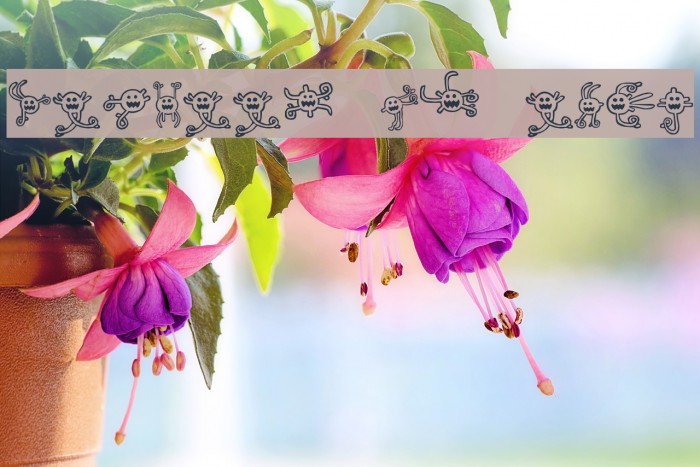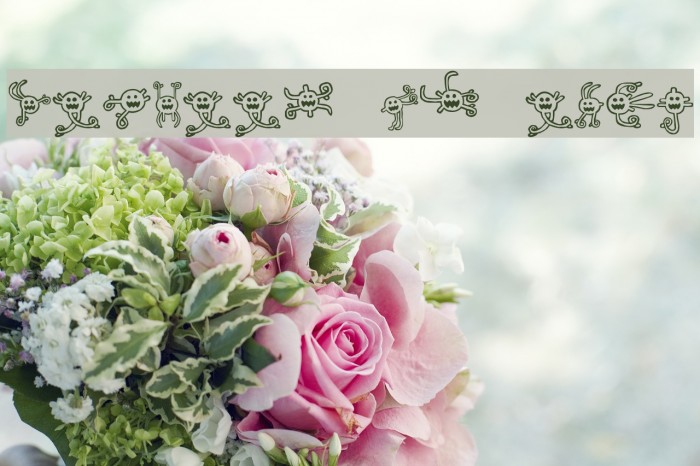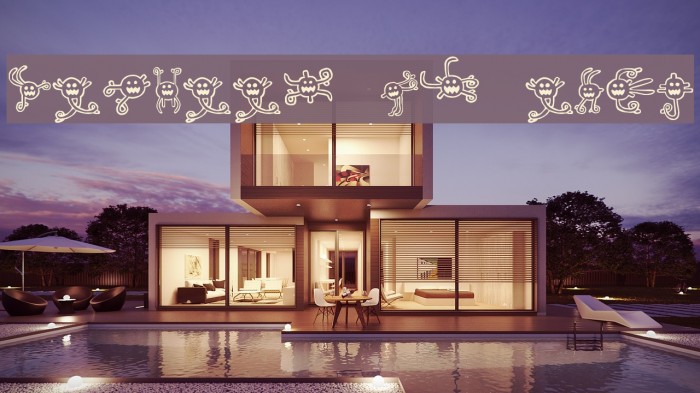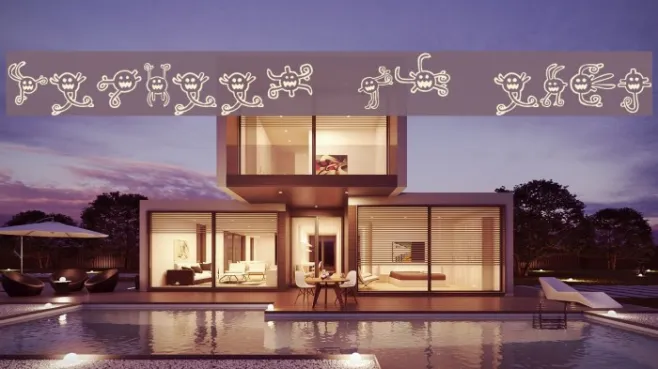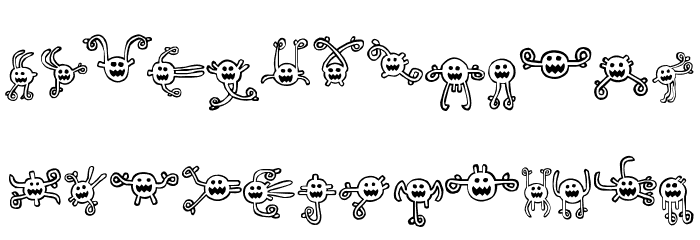
between my ears Font
between my ears Description
This font features whimsical, cartoon-like characters that resemble playful creatures with exaggerated expressions and limbs. Each character is distinct, with a unique combination of swirls, spikes, and dots, giving the font a lively and animated appearance. The design is highly decorative, with a focus on creativity and fun, making it stand out as a unique artistic expression. The characters are bold and outlined, adding to their visibility and impact. This font is not suitable for traditional text but excels in creating a playful and engaging visual experience.
| Use Case | Logos, Posters, Illustrations |
| Proposed Projects | Ideal for children's book illustrations, playful posters, creative branding, and unique event invitations. |